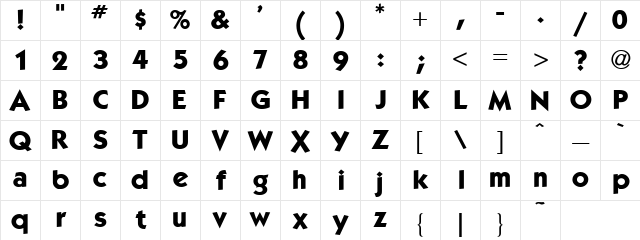
Kabel Book Free Font
Kabel Book
Design Context for Kabel
Kabel is a composed and adaptable typeface that performs quietly and consistently across a wide range of design contexts.